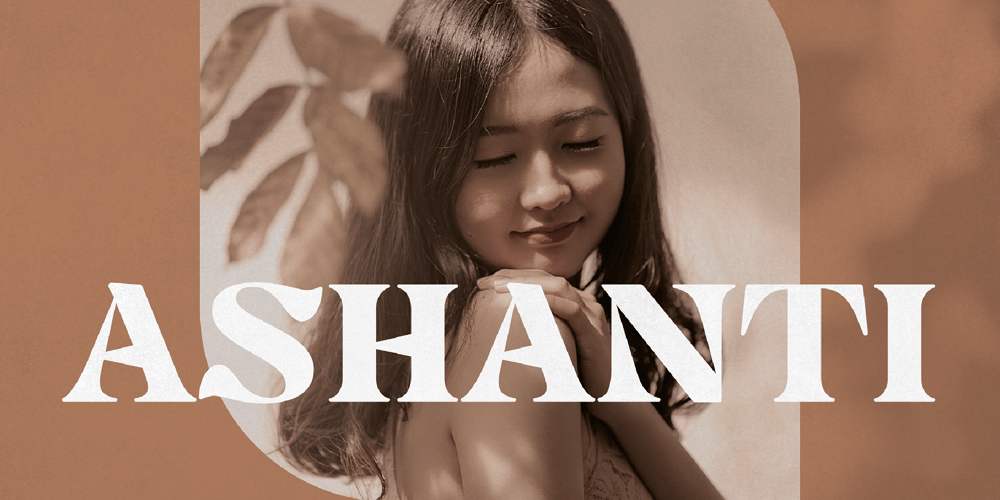
Ashanti Font Family was designed by Igor Ovsyannykov and published by Hipfonts. Ashanti contains 1 styles and family package options. Ashanti is an elegant serif display typeface ready to be used for all of your design projects. This stunning font includes stylish upper and lowercase letters. You can use Ashanti for packaging, wedding projects, invitations, posters, editorials, advertising, branding, and much more. Thanks to its strong aesthetic, it will make your design different and more attractive.